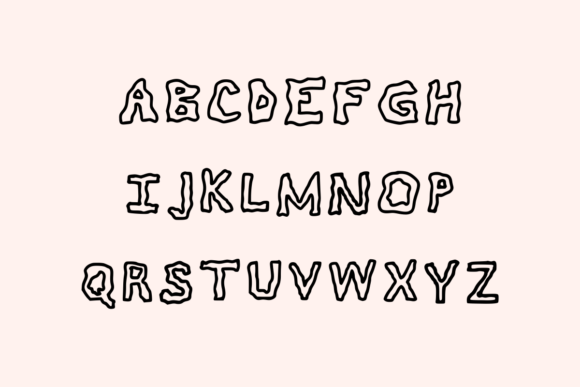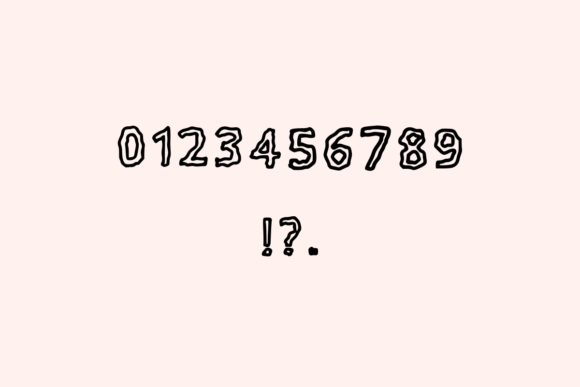
Introduction to It Was All a Dream Font
It Was All a Dream is a playful handwritten display font bursting with funky shapes and unique lettering.
It’s perfect for capturing a whimsical or spooky vibe throughout designs and effortlessly turns them into something special .
Key Features of It Was All a Dream Font
Why Choose It Was All a Dream Font?